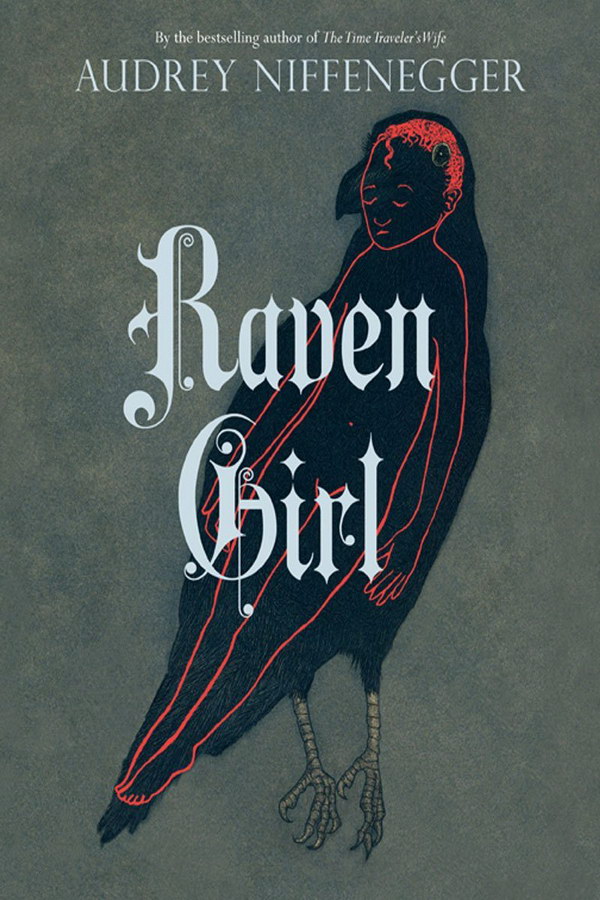
Raven Girl Font
The book title "Raven Girl" has old English lettering that resembles the Aeronaut font designed by Georg Herold Wildfellner. This is a commercial font and you can buy it here.